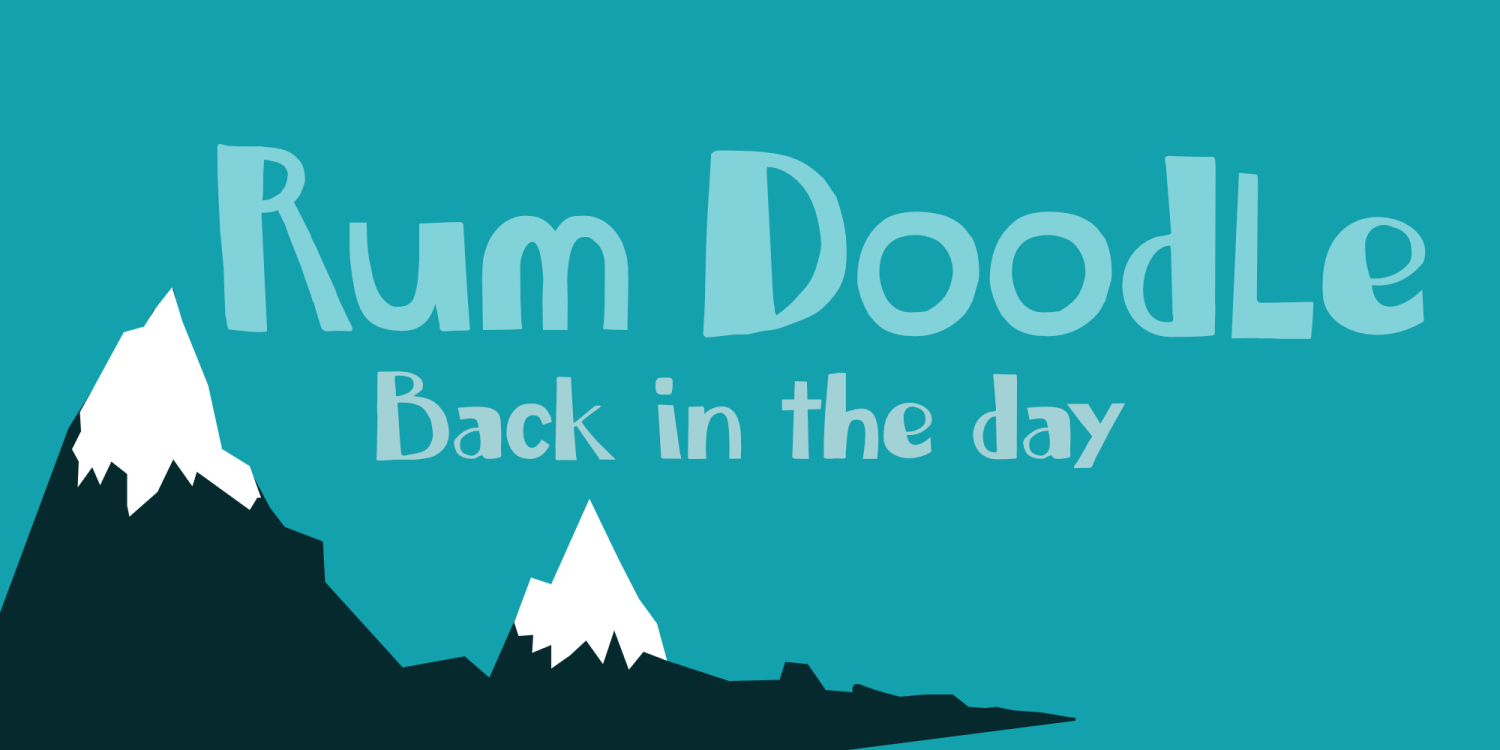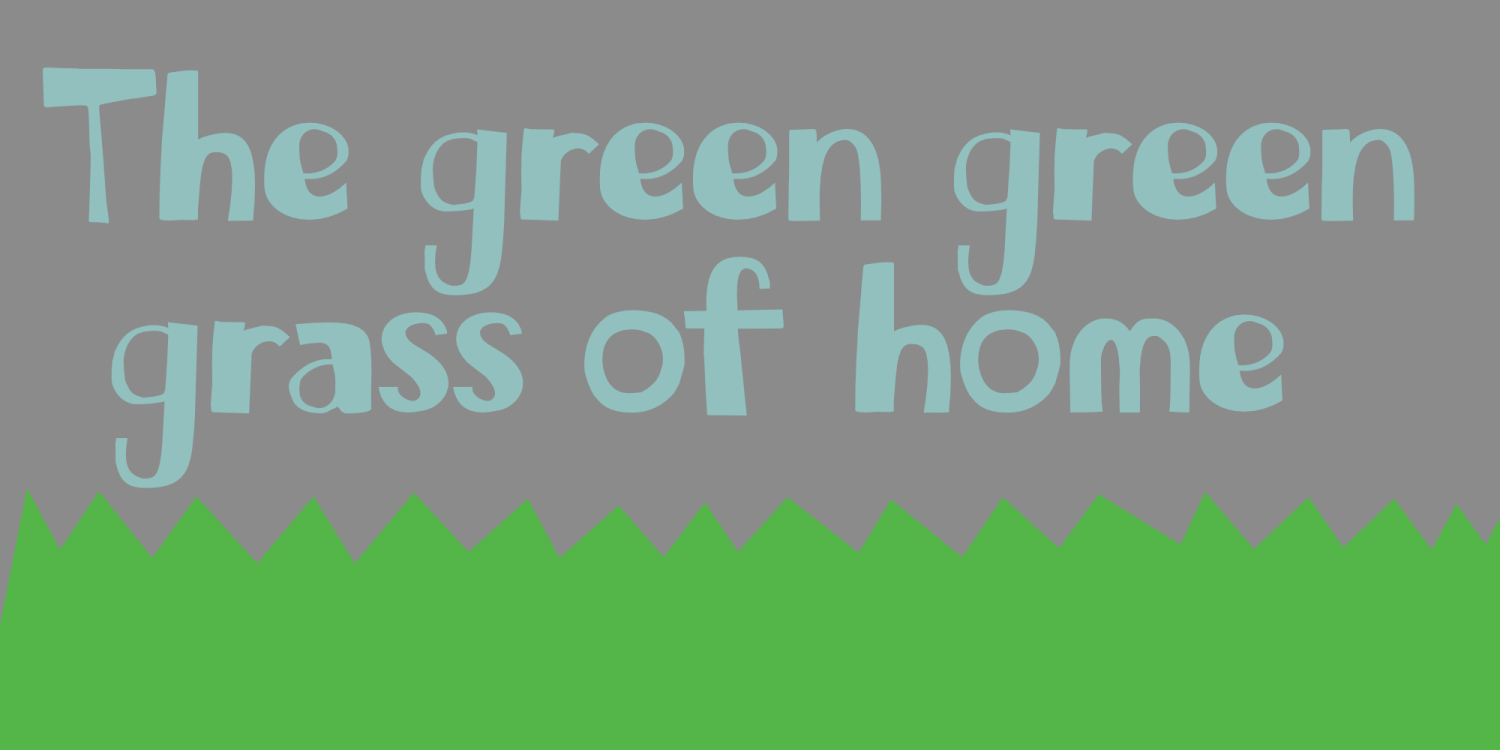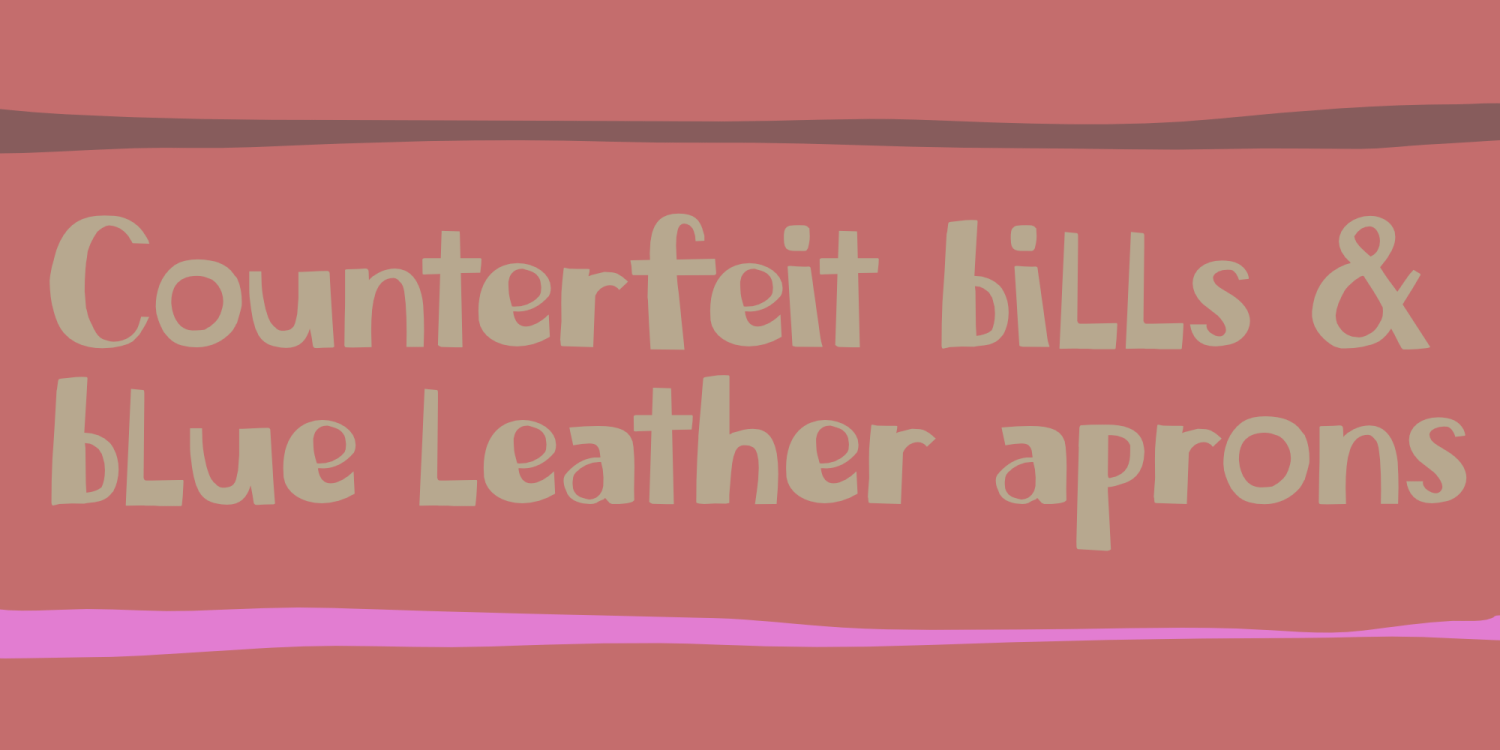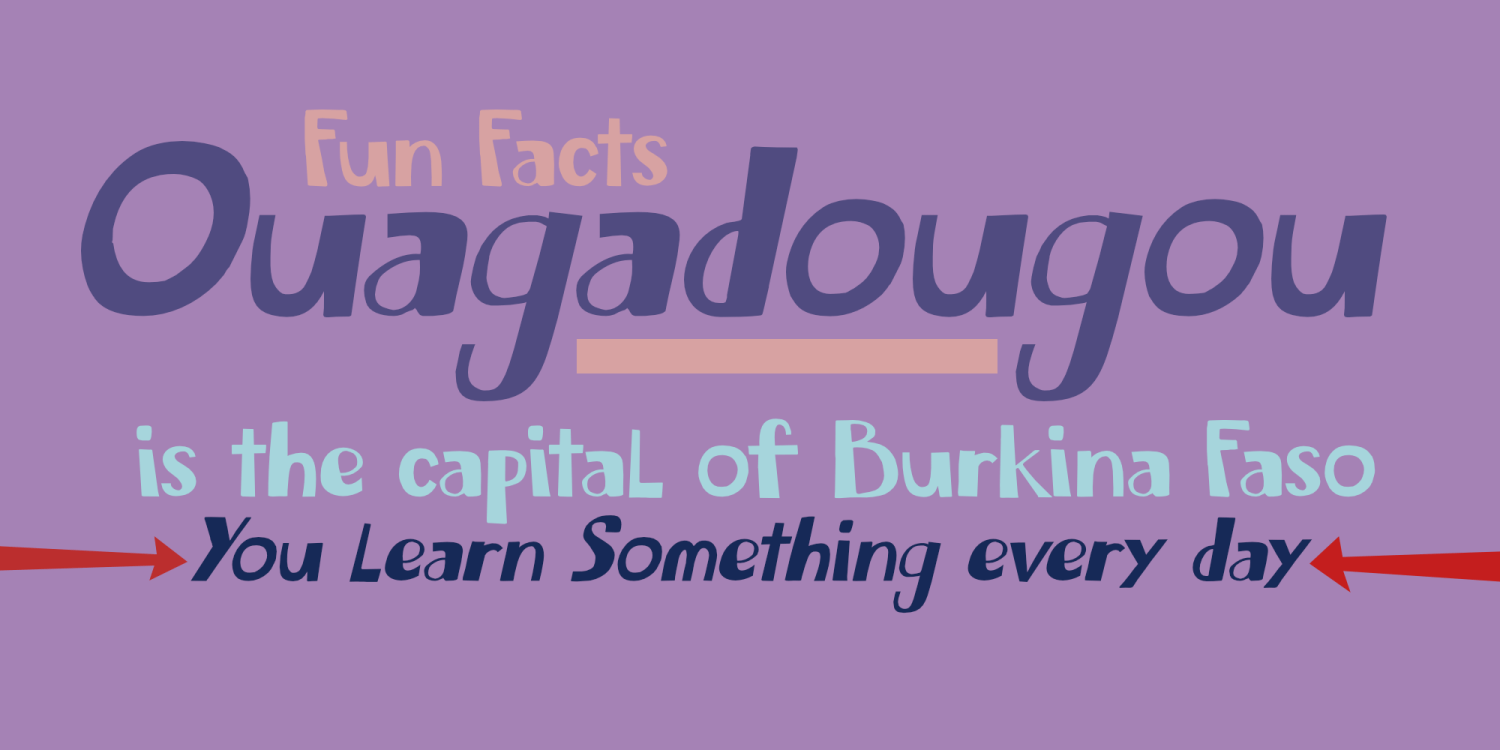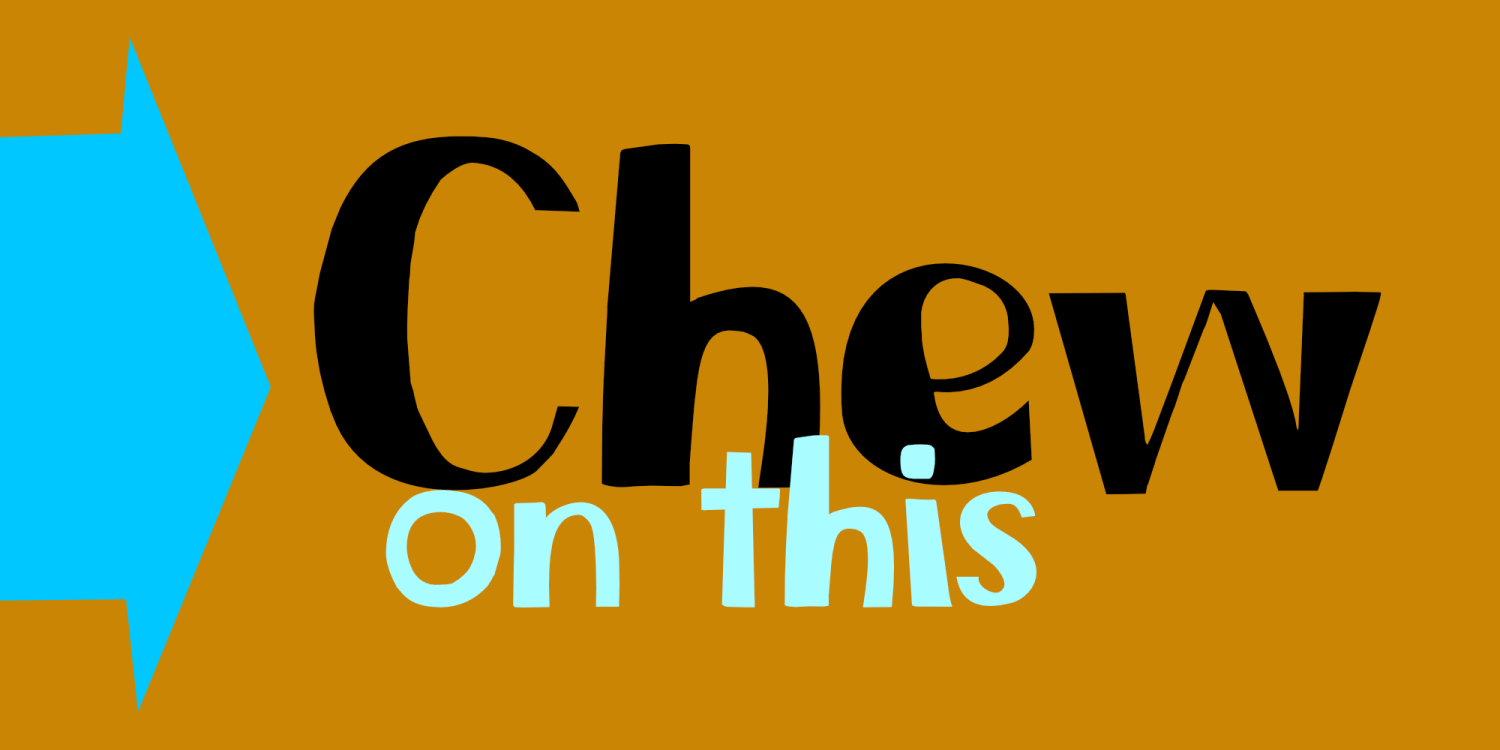
About Chew on This
Back in 2013 I released an all caps font called Rum Doodle. Rum Doodle is a really nice, really weird font with angular glyphs and a unique look. I decided that it would be nice to tweak this font a bit and design a lower case for it. The result is Chew…